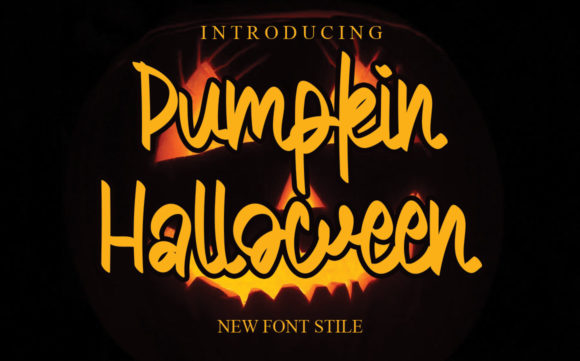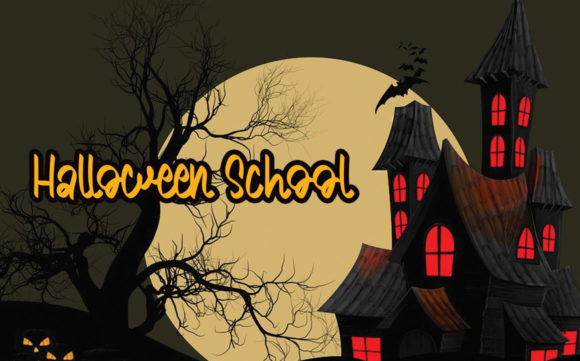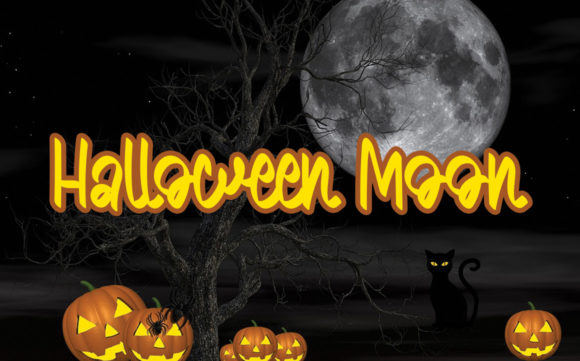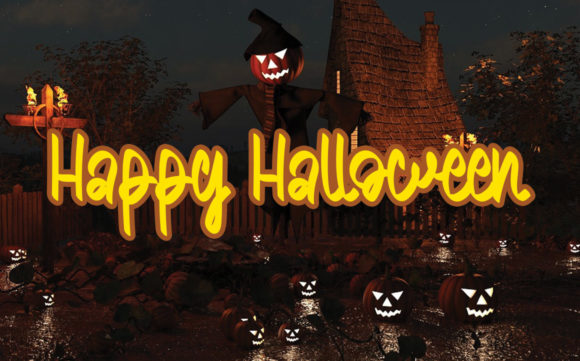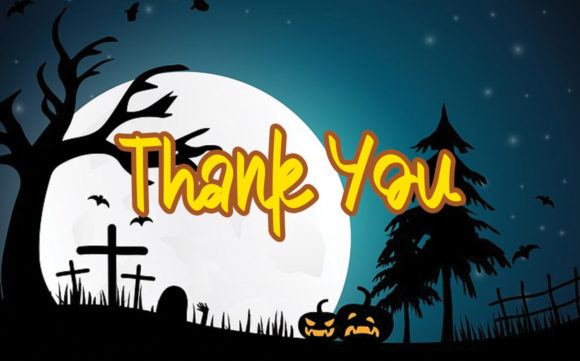
Pumpkin Halloween Font
About Pumpkin Halloween Font
Pumpkin Halloween is a cursive and trendy handwritten font. This original look will appeal to a wide range of crafty ideas, from letterheads and titles, to stationery.